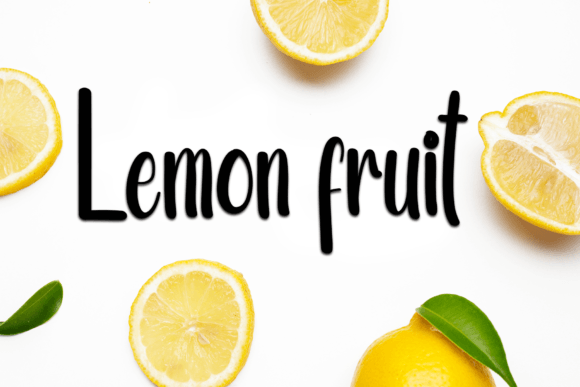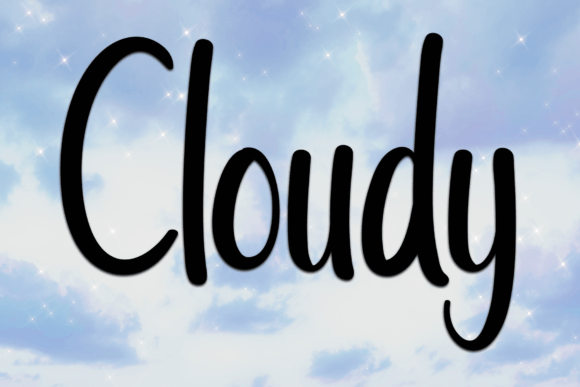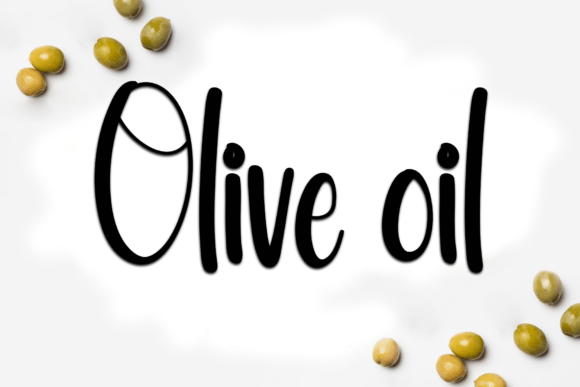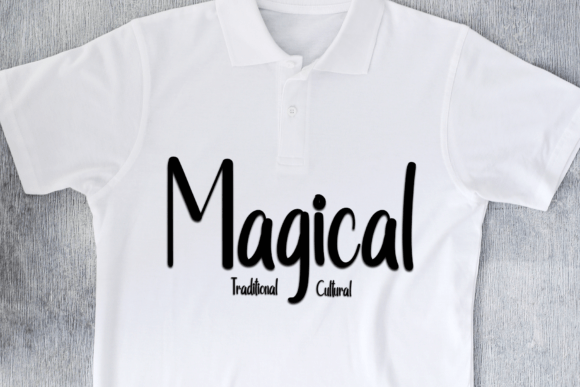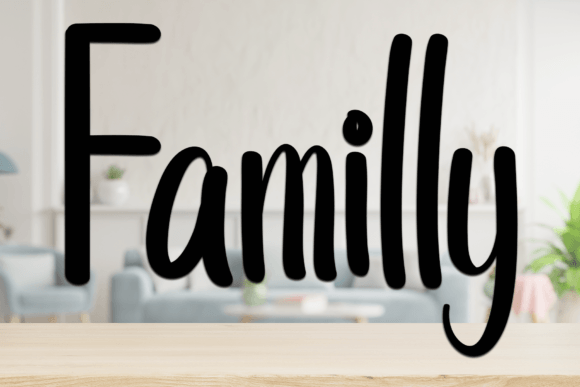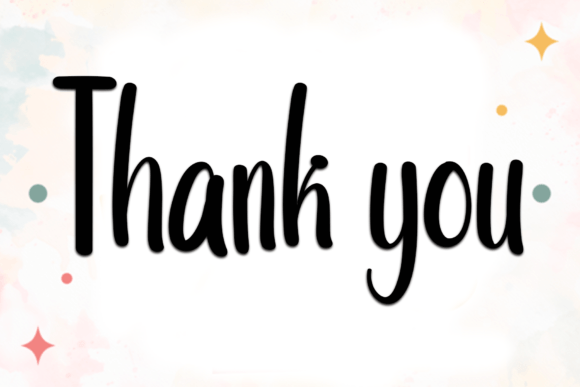
Gardener Font: Elevate Your Designs with a Cool, Simple, and Playful Handwritten Style
Are you tired of using the same old fonts in your designs? Do you want to add a touch of personality and whimsy to your creative projects? Look no further than the Gardener font, a cool, simple, and playful handwritten font that’s incredibly versatile and sure to elevate your designs to the highest levels.
What is Gardener Font?
Gardener font is a modern, handwritten font that’s perfect for designers and crafters looking for a unique and eye-catching style. With its smooth, flowing lines and playful vibe, this font is ideal for a wide range of design projects, from branding and packaging to social media graphics and blog posts.
Key Features of Gardener Font
- Cool and Simple: Gardener font has a calm and composed look that’s perfect for designs that require a touch of sophistication.
- Playful and Whimsical: Despite its simplicity, Gardener font has a playful vibe that’s sure to add a touch of personality to your designs.
- Incredibly Versatile: This font fits a wide pool of designs, from modern and minimalist to vintage and rustic.
- Handwritten Style: Gardener font has a genuine, handwritten look that’s perfect for designs that require a personal touch.
How to Use Gardener Font in Your Designs
Adding Gardener font to your designs is easy. Here are a few ways you can use this amazing font:
- Branding and Packaging: Use Gardener font to create unique and eye-catching logos, business cards, and product labels.
- Social Media Graphics: Add Gardener font to your social media graphics, such as Facebook posts, Instagram stories, and Twitter headers.
- Blog Posts and Articles: Use Gardener font to add a touch of personality to your blog posts and articles.
- DIY Projects: Gardener font is perfect for crafters and DIY enthusiasts who want to add a personal touch to their projects.
Why Choose Gardener Font?
With so many fonts to choose from, why should you choose Gardener font? Here are a few reasons:
- Unique and Eye-Catching: Gardener font is a unique and eye-catching font that’s sure to make your designs stand out.
- Easy to Read: Despite its playful vibe, Gardener font is easy to read and understand.
- Customizable: Gardener font can be customized to fit your design needs, from changing the color and size to adding effects and textures.
Tips and Tricks for Using Gardener Font
Here are a few tips and tricks for using Gardener font in your designs:
- Pair with Other Fonts: Gardener font pairs well with other fonts, such as sans-serif and serif fonts.
- Use in Combination with Images: Gardener font looks great in combination with images, such as photos and illustrations.
In conclusion, Gardener font is a cool, simple, and playful handwritten font that’s perfect for designers and crafters looking to add a touch of personality to their designs. With its smooth, flowing lines and playful vibe, this font is sure to elevate your designs to the highest levels. So why wait? Add Gardener font to your favorite creative ideas and notice how it makes them come alive!